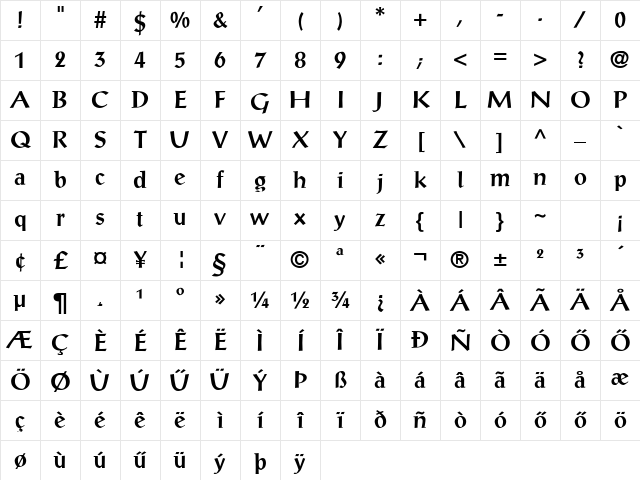
ProseAntique-HU Bold
Design Context for ProseAntique-HU
ProseAntique-HU wears its vintage influences proudly, with letterforms that recall mid-century signage, classic packaging, and nostalgia-driven design. Its bold stroke weight gives it real presence on the page.
Font Pairing: Combine ProseAntique-HU with a simple slab or neutral sans - period-accurate companions reinforce the vintage feel without competing for attention.
Pro Tip: Lean into ProseAntique-HU's period character by pairing it with aged paper textures, muted colour palettes, and vintage illustration styles.